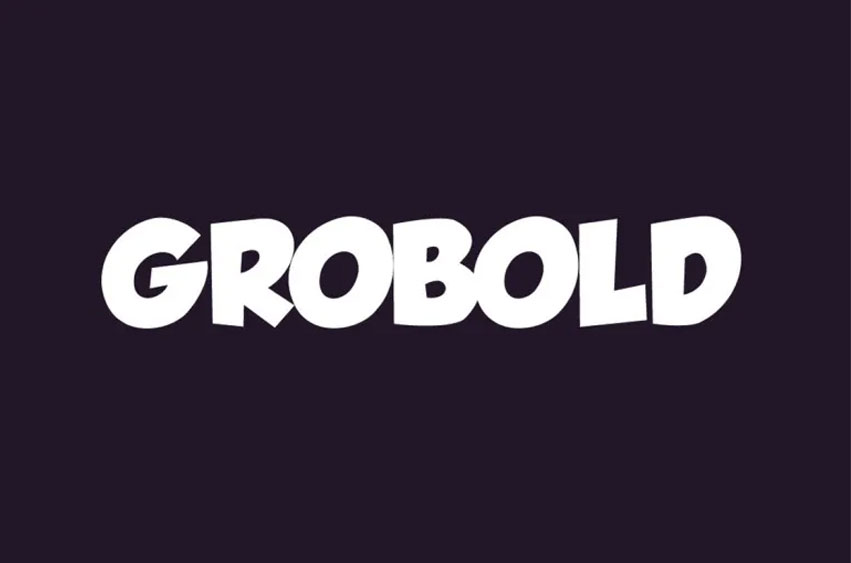
Grobold Font
Grobold Font designed by Guy Buhry, is an eye-catching 3D font typeface. Ideal for banners, posters and logo designs due to its compacted letters featuring slim transverse lines giving it a strong yet visible base – its exact layout of letter “q” alongside letter “z” also make this set unique!